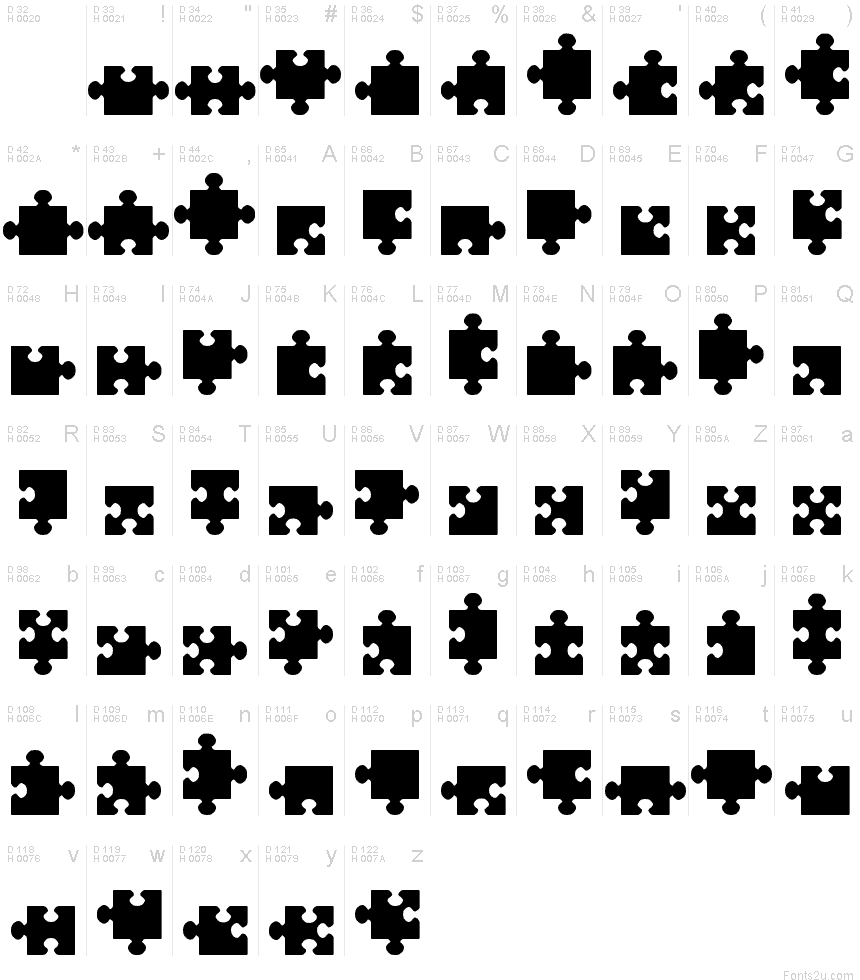
Jigsaw Pieces TFB by kaiserzharkhan is a free game-themed dingbat font offering varied jigsaw-piece symbols. Their silhouettes use different arrangements of rounded tabs and sockets, so the collection feels related without becoming repetitive. The broad, simple shapes recall classic tabletop puzzles.
A children's puzzle book is the strongest fit, with the pieces also suited to classroom activity sheets, game packaging, and playful event graphics. The recurring tabs and cutouts let the symbols become borders, markers, or puzzle-based illustrations.
Jigsaw Pieces TFB by Kaiserzharkhan is a dingbat font containing solid puzzle-piece symbols. The pieces vary in outline, with different arrangements of rounded tabs and inward sockets.